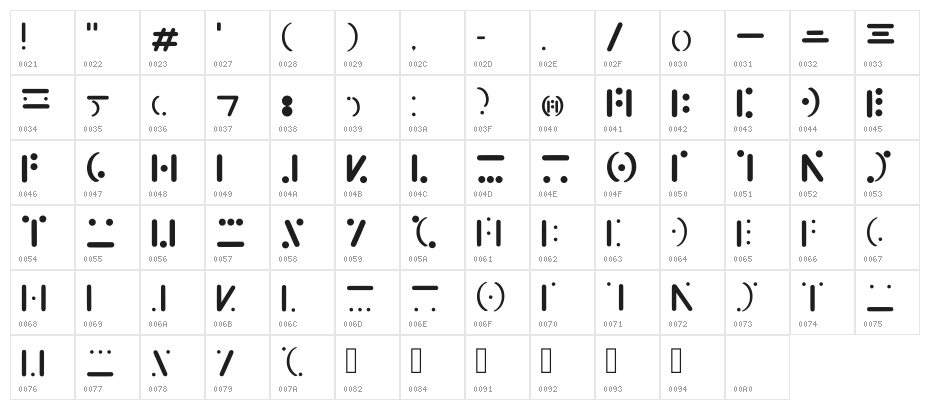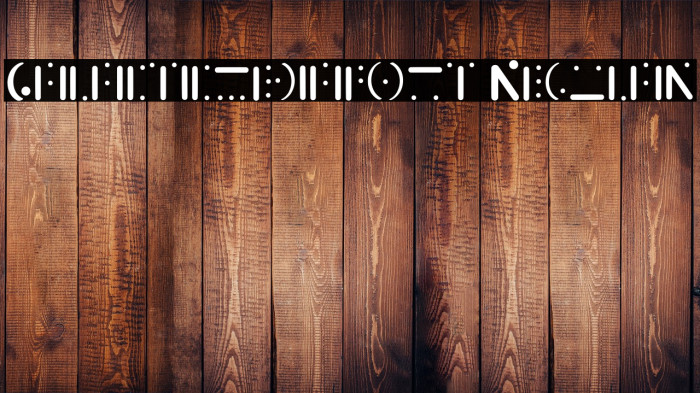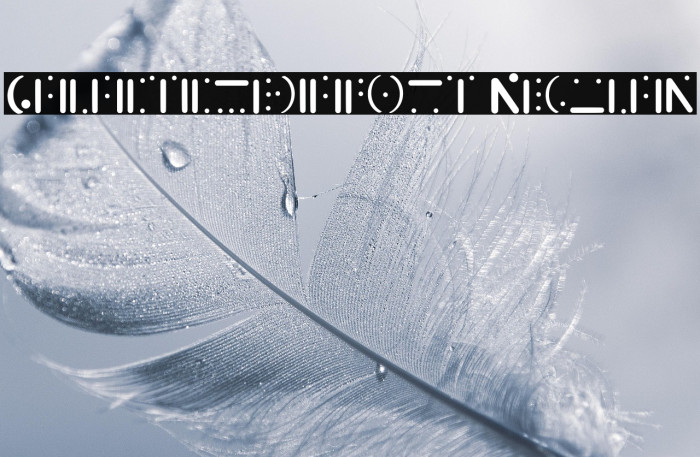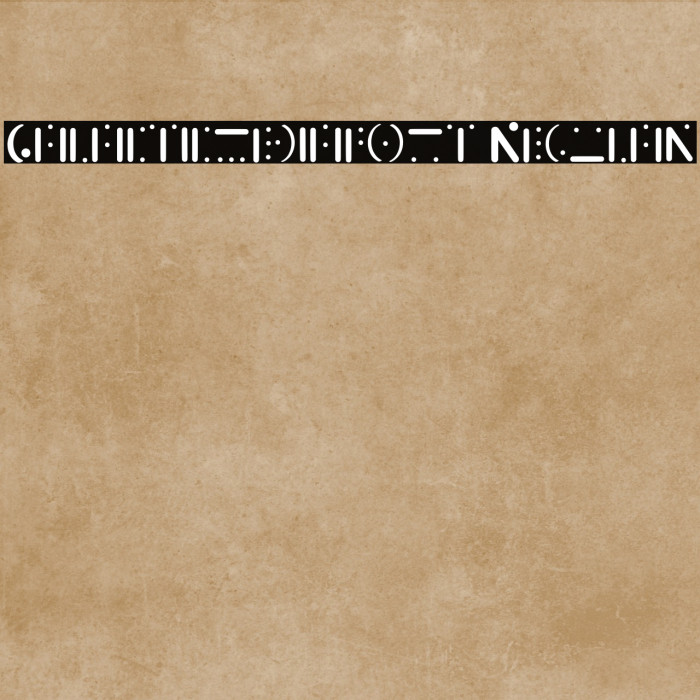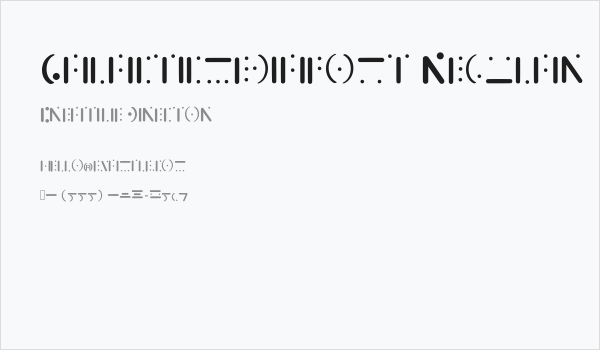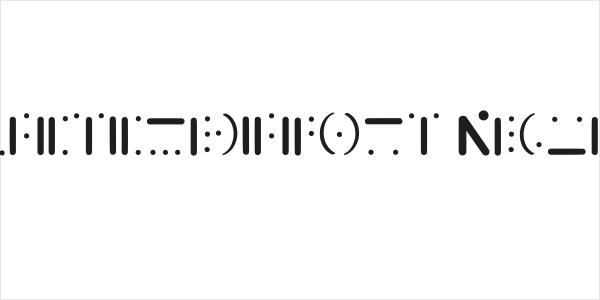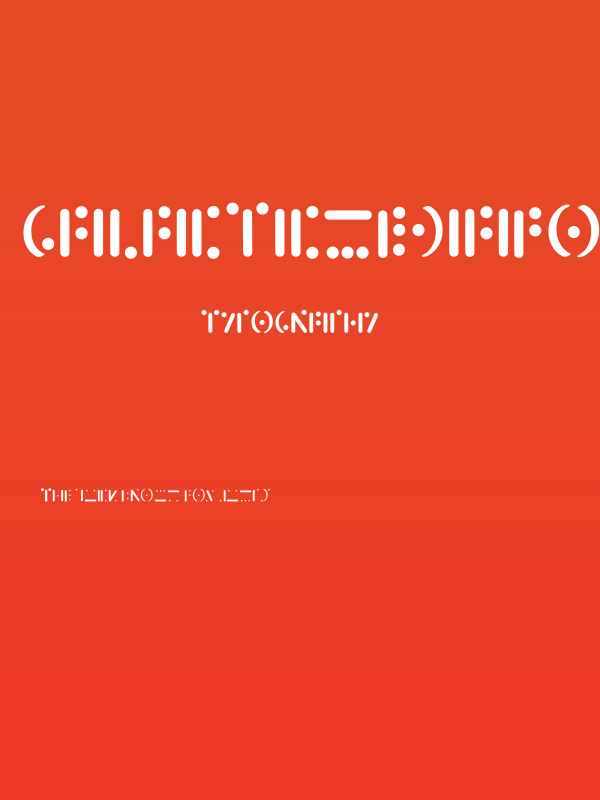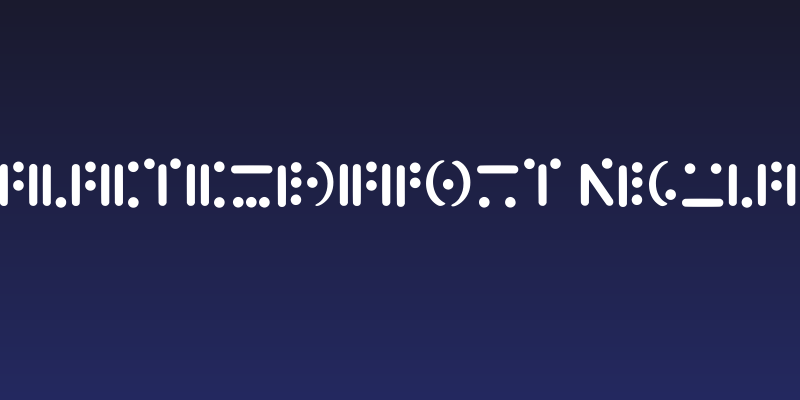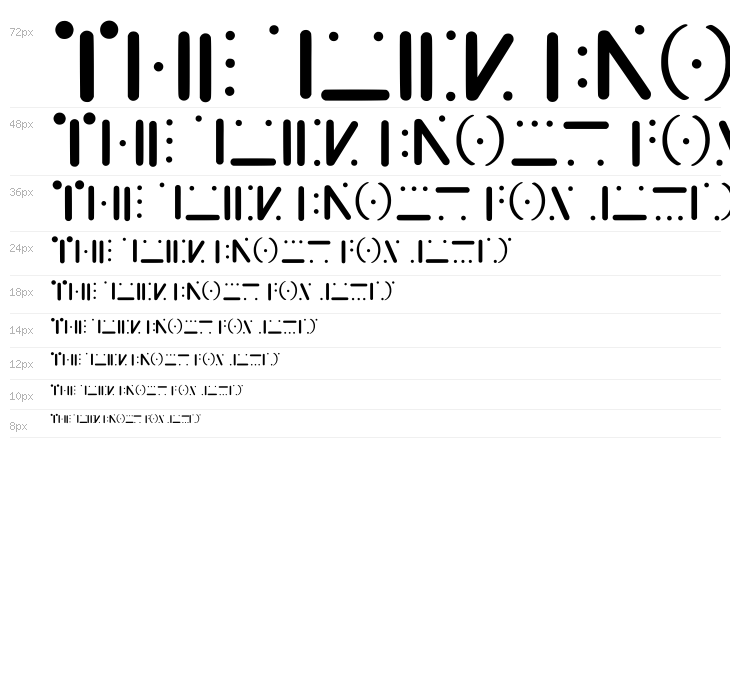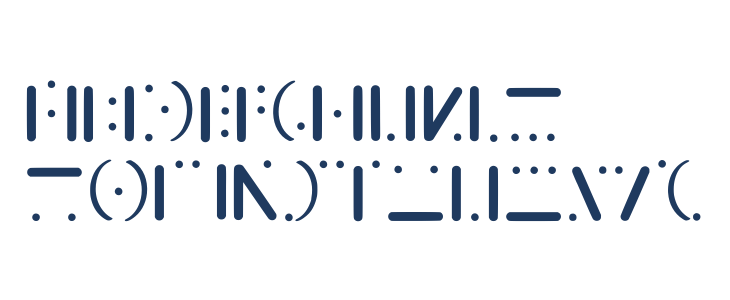
Galacticmediafont Regular Font
Galacticmediafont Regular Description
This font features a highly unique and futuristic design, characterized by its use of bold, geometric shapes and a dot-matrix style. Each character is composed of thick lines and circular dots, creating a digital and space-age aesthetic. The font's structure is reminiscent of Morse code or alien scripts, making it ideal for projects that require a modern and unconventional look. The characters are evenly spaced, providing a balanced and cohesive appearance. This font is particularly suitable for creative and experimental designs, where a strong visual impact is desired.